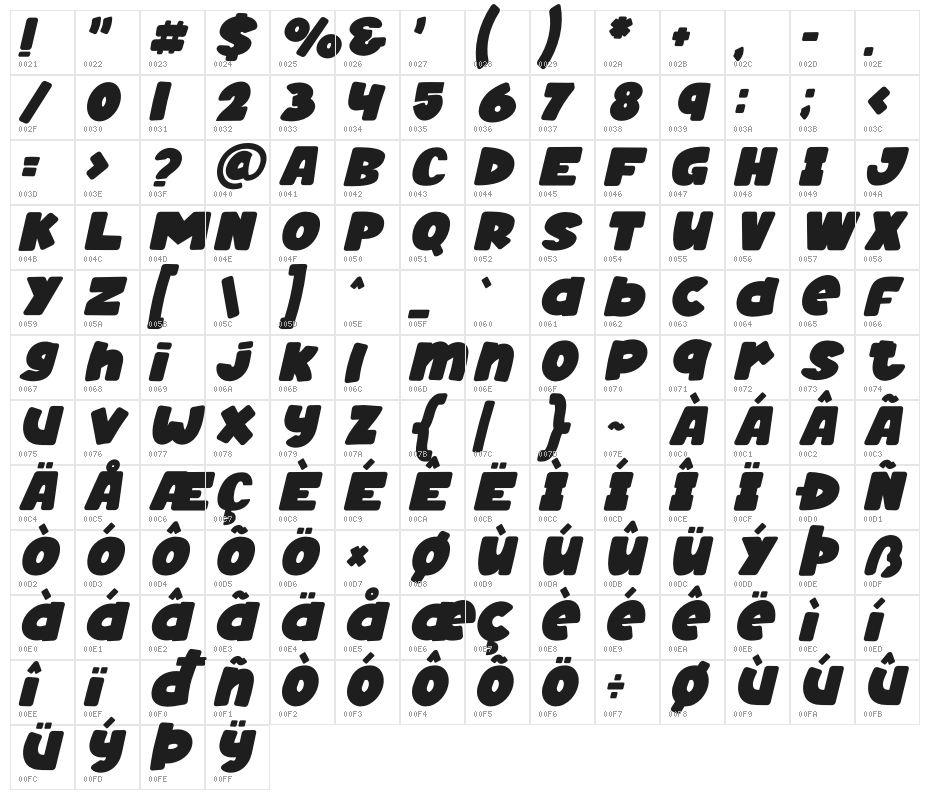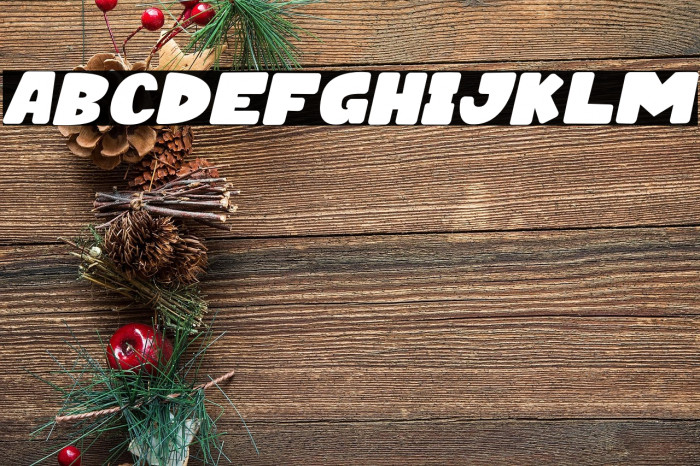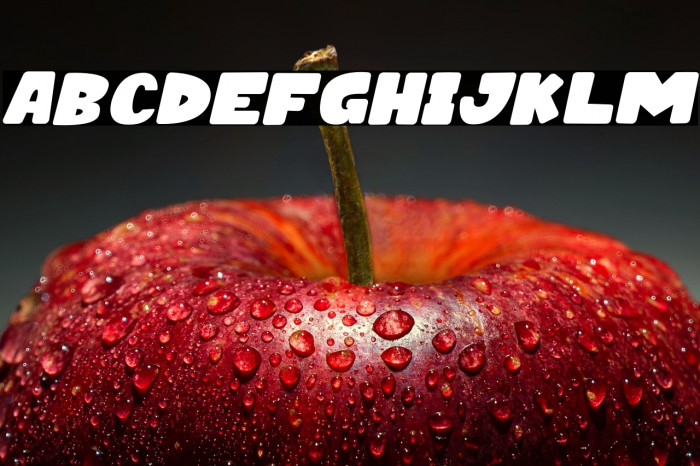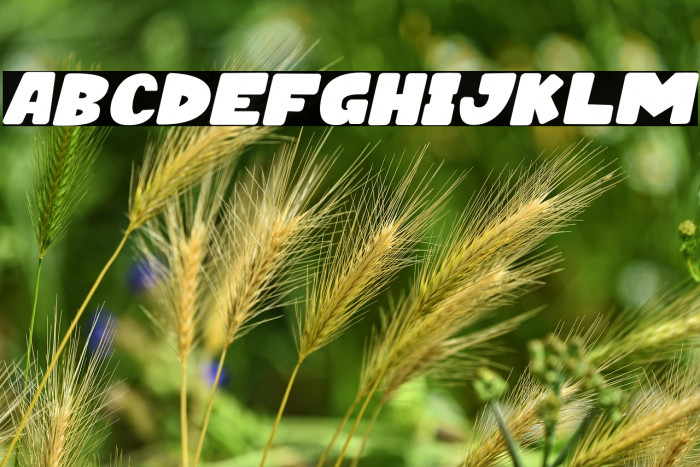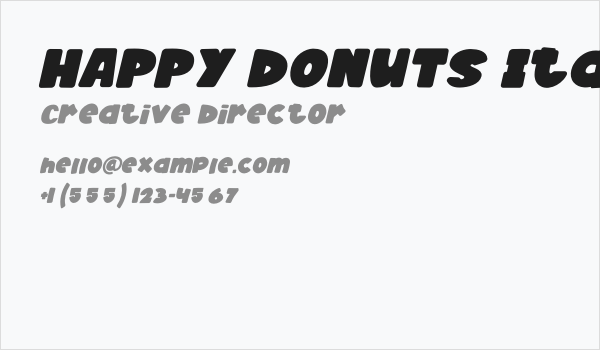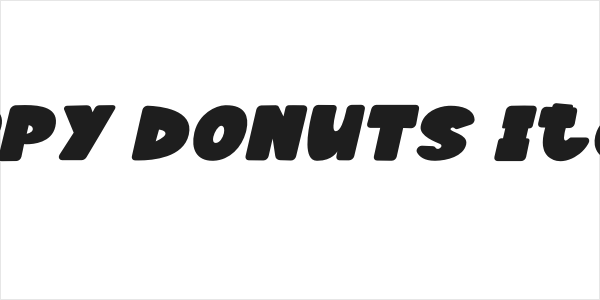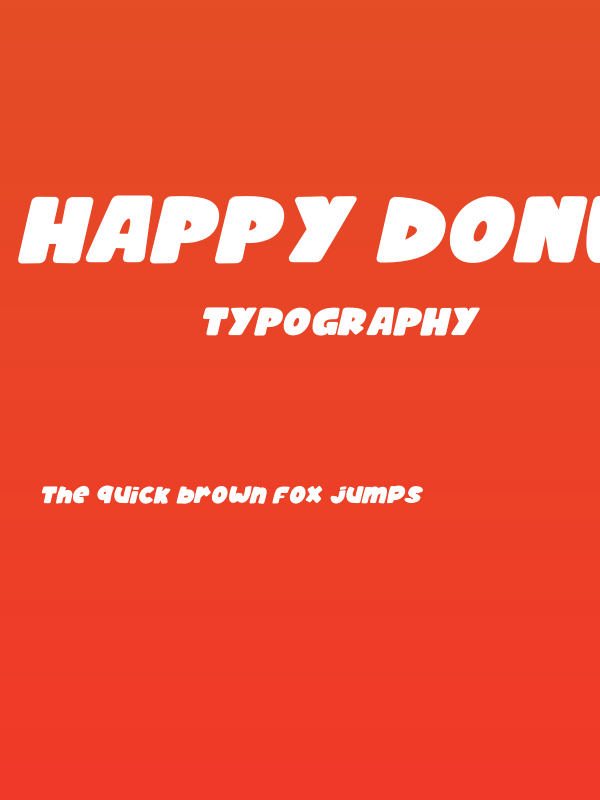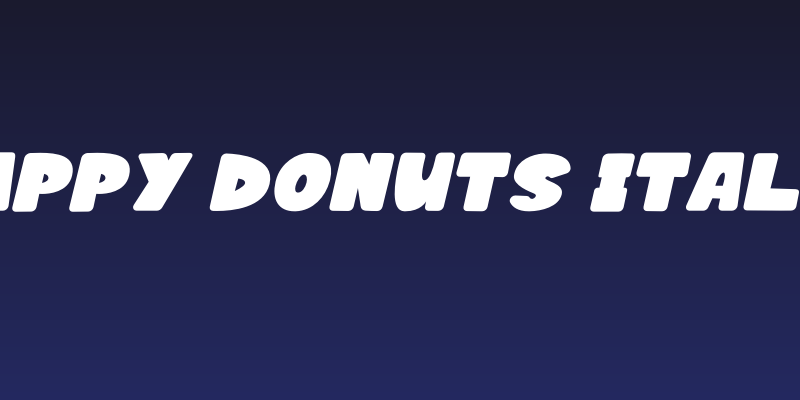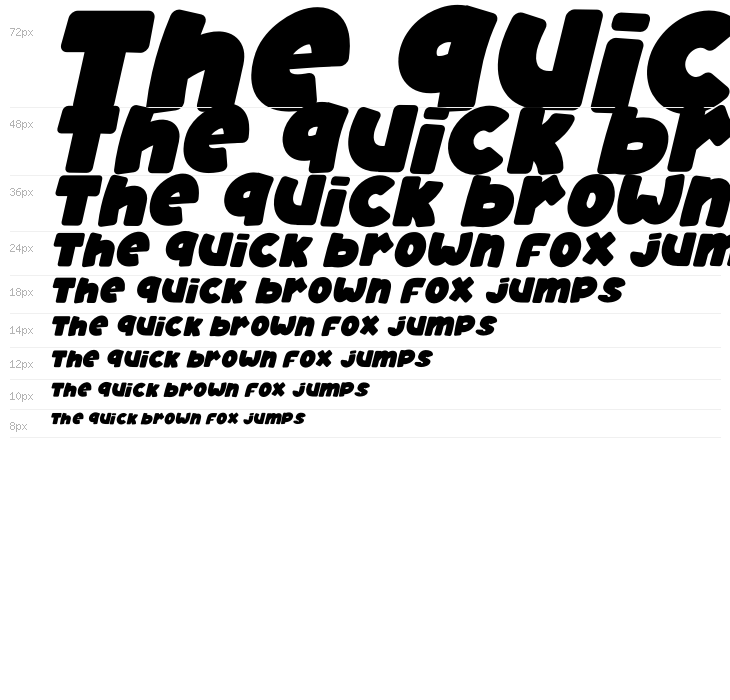
HAPPY DONUTS Italic Font
HAPPY DONUTS Italic Description
This playful and bold font features a unique, rounded style with a slightly italicized slant, giving it a dynamic and energetic appearance. The characters are thick and robust, with a whimsical touch that makes them stand out. The uppercase and lowercase letters maintain a consistent style, with smooth curves and a friendly demeanor. Numbers and special characters are equally bold, ensuring uniformity across all text elements. This font is perfect for projects that require a fun and engaging look, such as children's books, playful branding, or eye-catching headlines.
| Overall Style | Playful, Energetic, Whimsical |
| Proposed Projects | Ideal for children's books, playful branding, eye-catching headlines, and fun posters. |